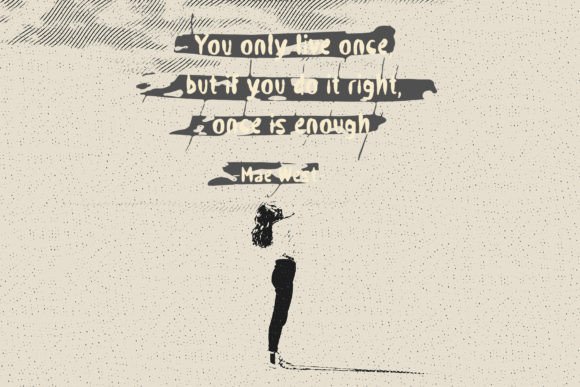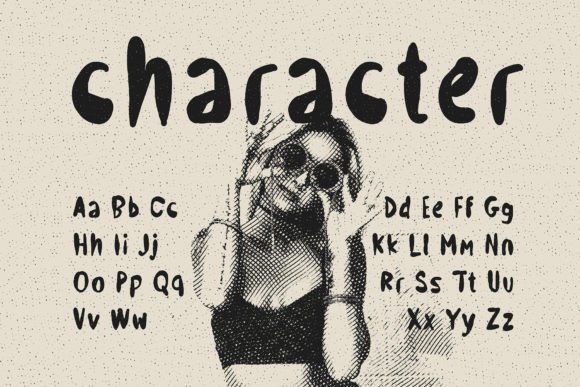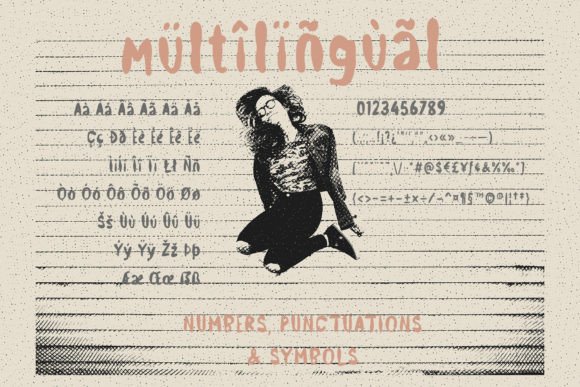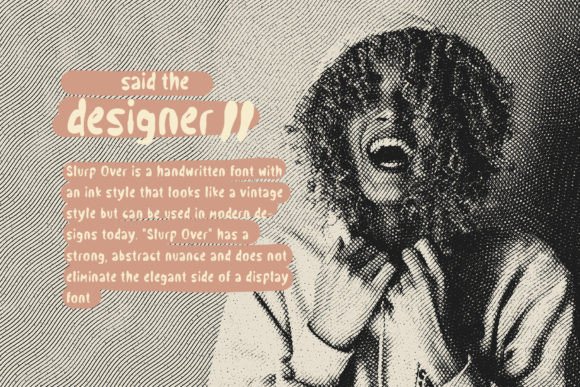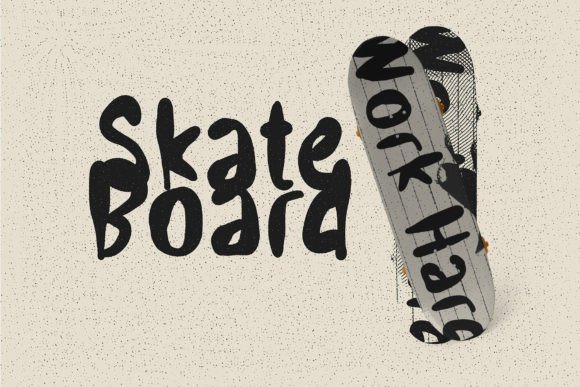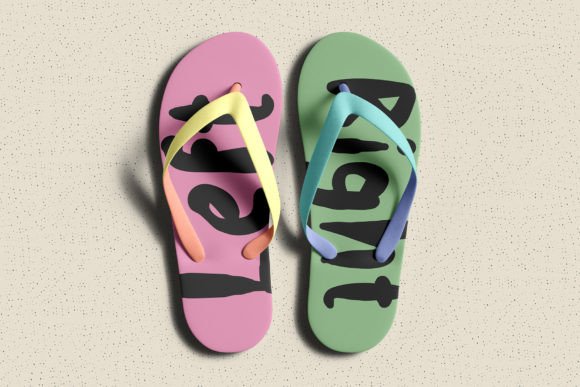
Introduction to Slurp over Font Font
Fonts play a crucial role in design, and the Slurp over Font font is a typeface that brings both character and versatility to any project. Whether you’re working on a branding project, a website, or a print design, the Slurp over Font font offers a unique style that can elevate your work.
Slurp Over font is an ink handwritten typeface that combines vintage and modern styles into a captivating unity.
It is created with the intention of bringing unique character, with a classic yet fresh and contemporary touch The story behind the creation of this font begins with our desire to create a typeface that merges the aesthetics of vintage with the dynamic style of the modern era.
Key Features of Slurp over Font Font
Why Choose Slurp over Font Font?
The Slurp over Font font is more than just a typeface – it’s a design tool that helps you communicate your message with style and clarity. Its unique character set and versatile design make it suitable for a wide range of applications, from elegant invitations to bold headlines.
With its carefully crafted letterforms and balanced proportions, the Slurp over Font font ensures readability and visual appeal across all mediums.
What makes Slurp over Font font special?
The Slurp over Font font stands out with its unique design, exceptional readability, and versatility across various design applications.